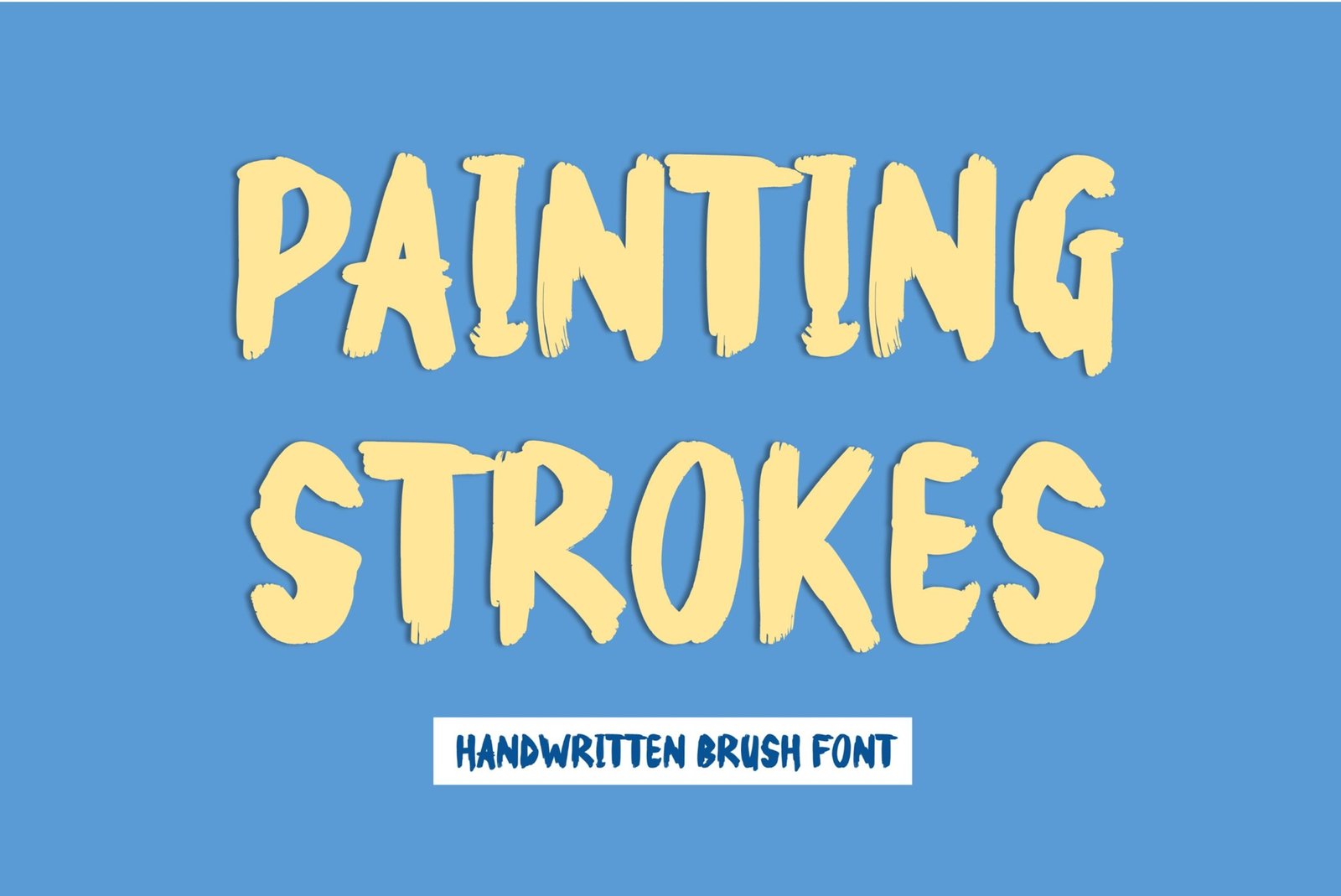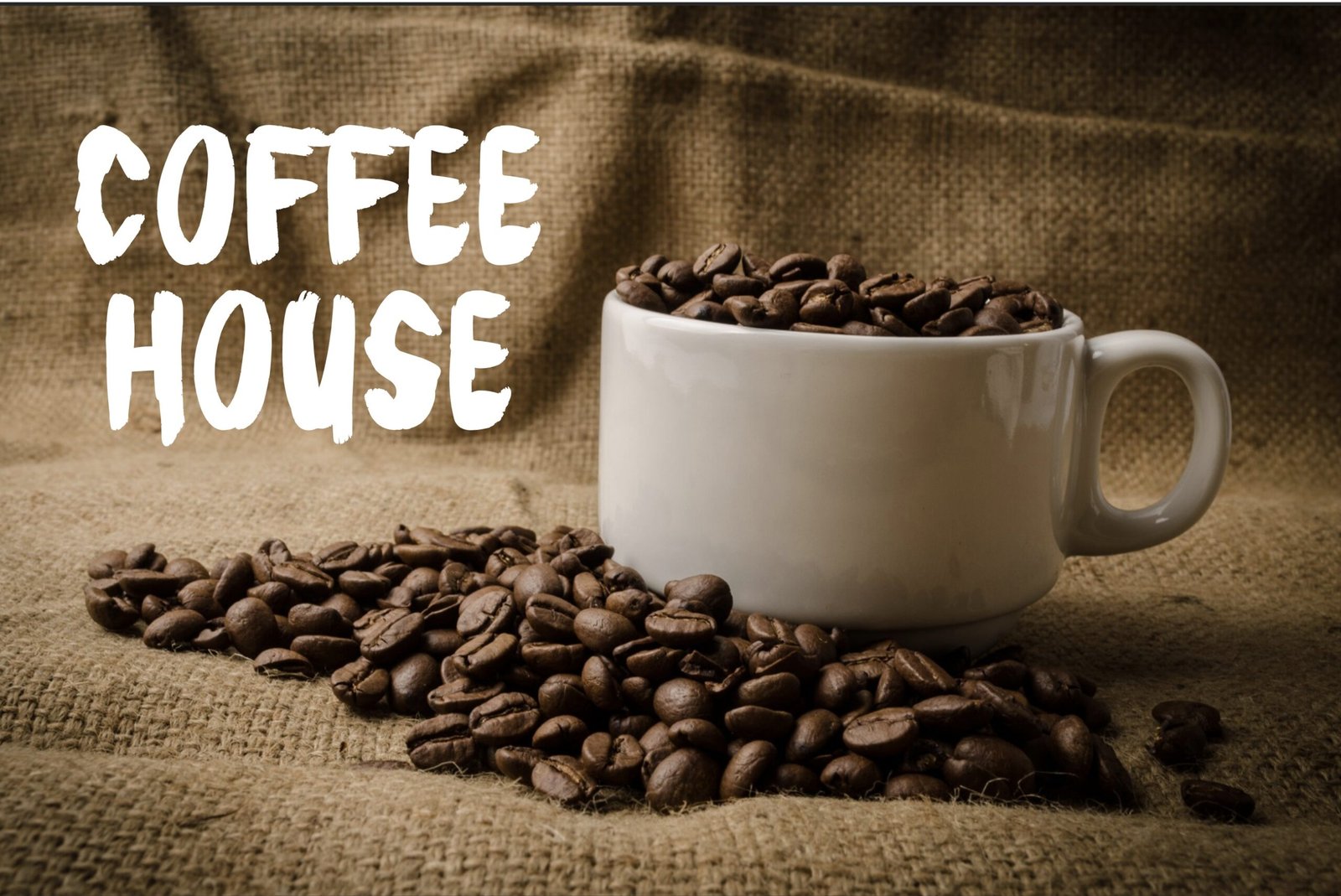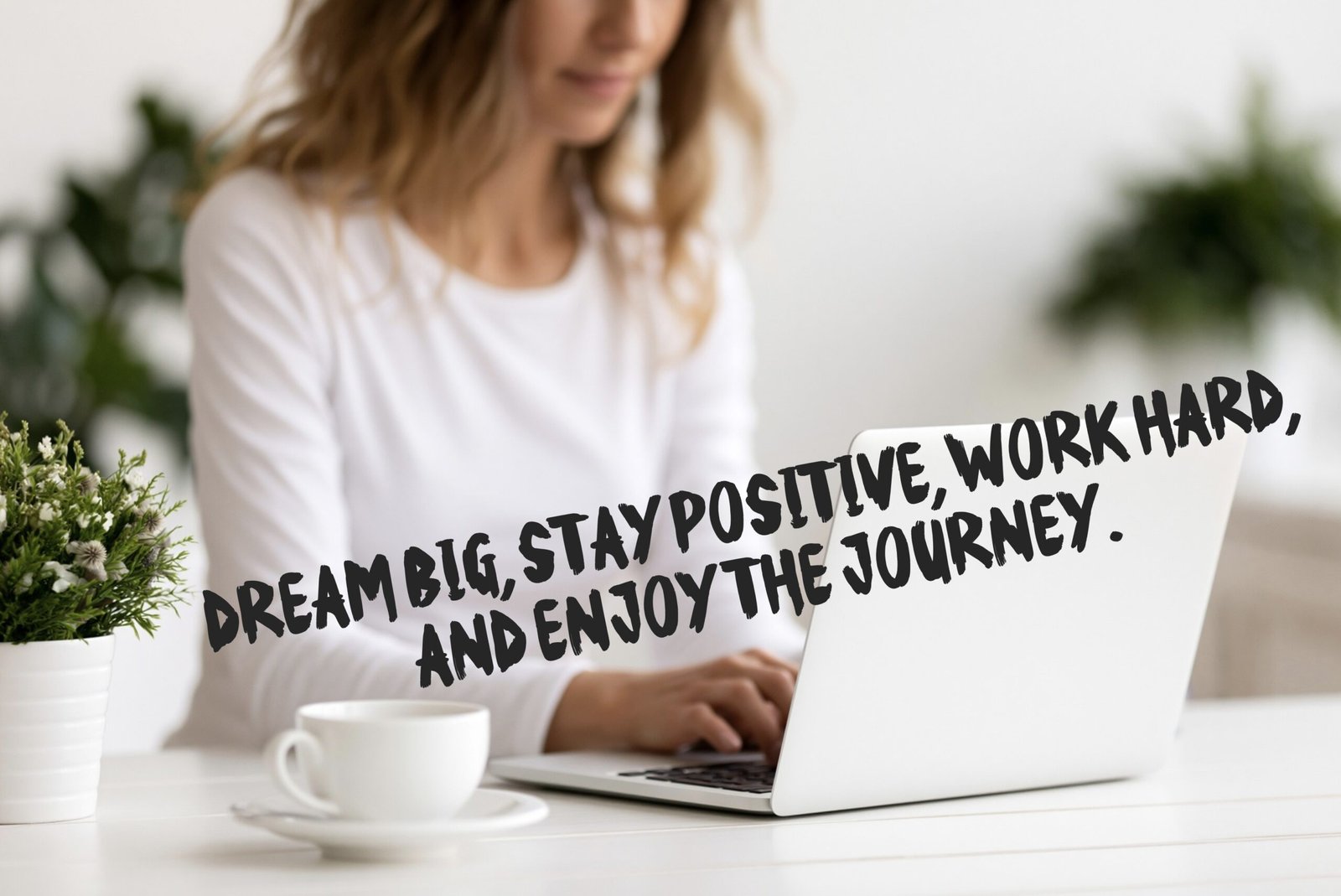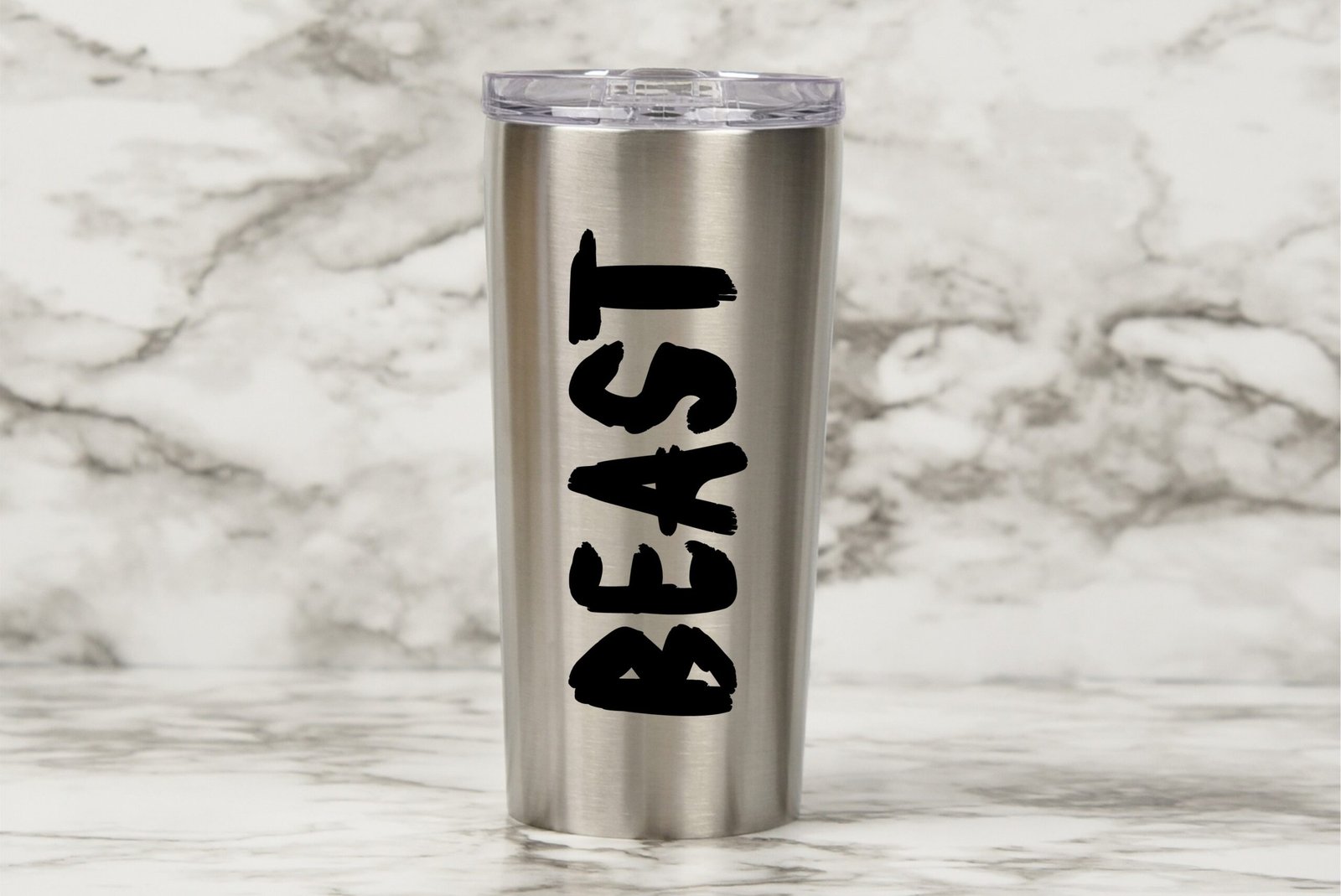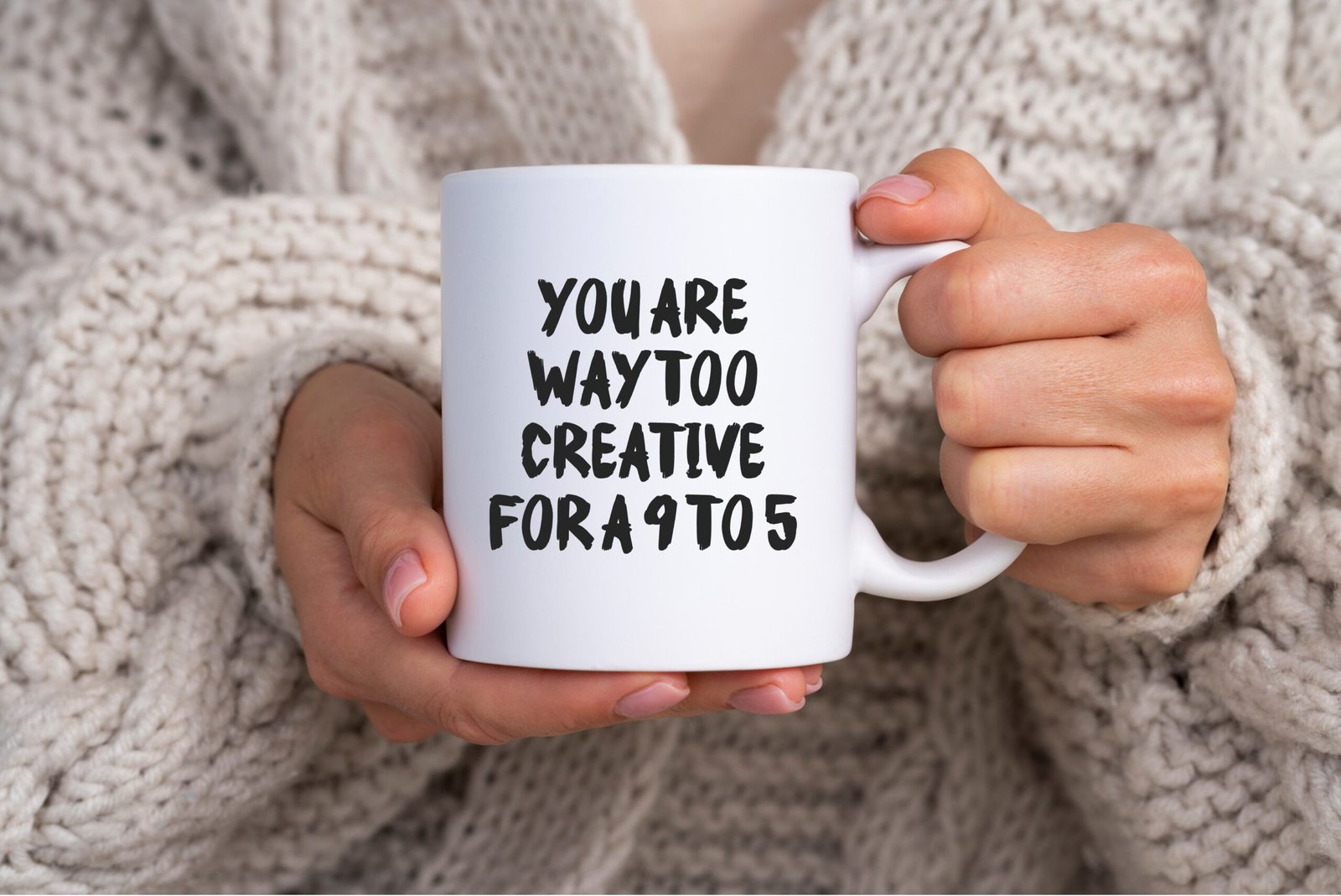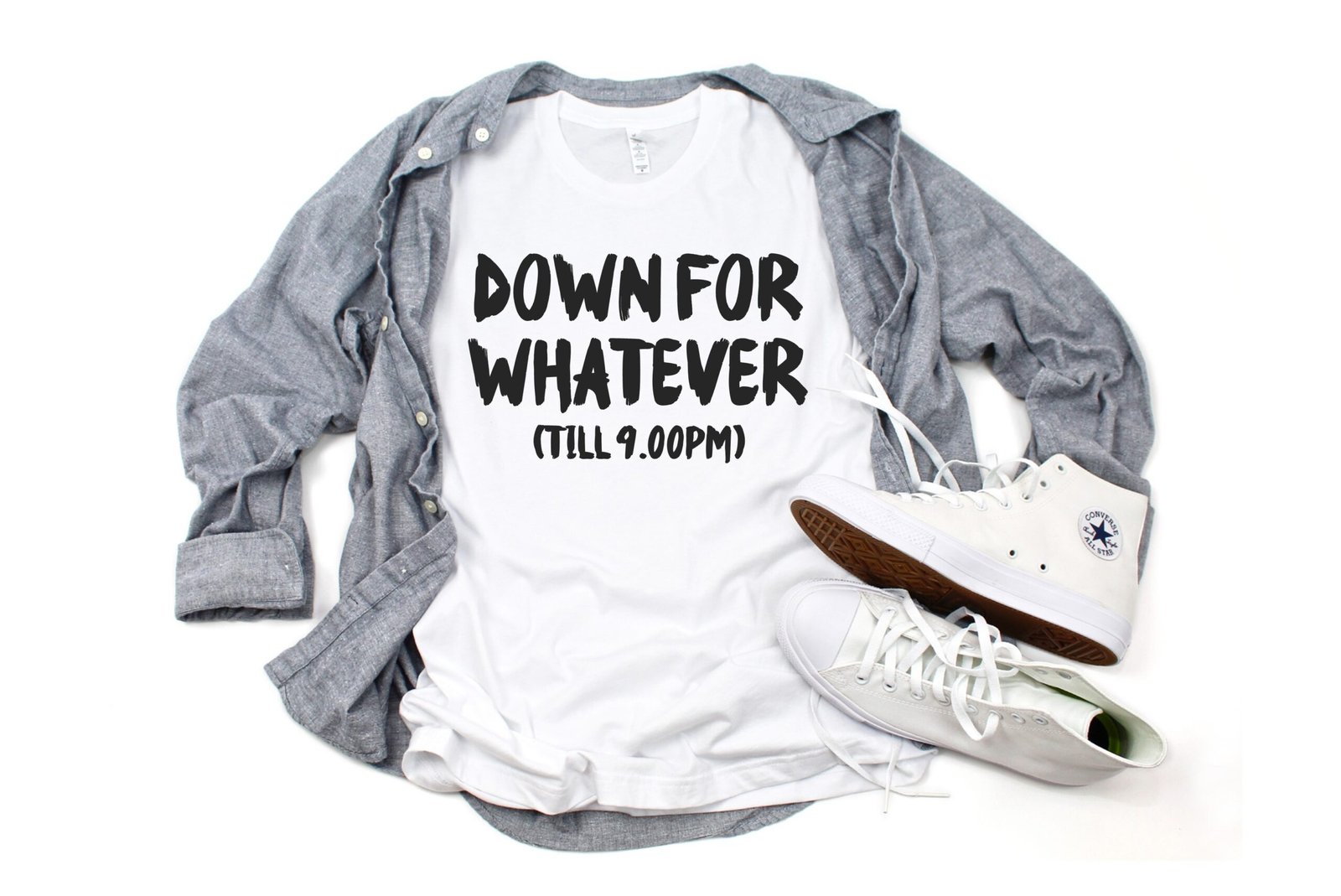
Painting Strokes Font
Paint brush font. “Painting Strokes”. Perfect for advertising and display purposes, including banners, book covers, shirts, posters, logos and much more!
This is an ALL CAPS font, featuring numbers, characters, and punctuation.